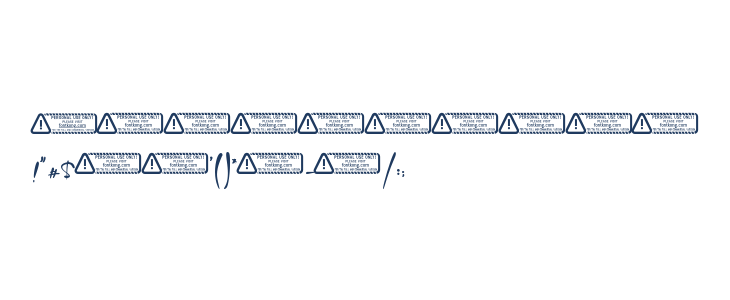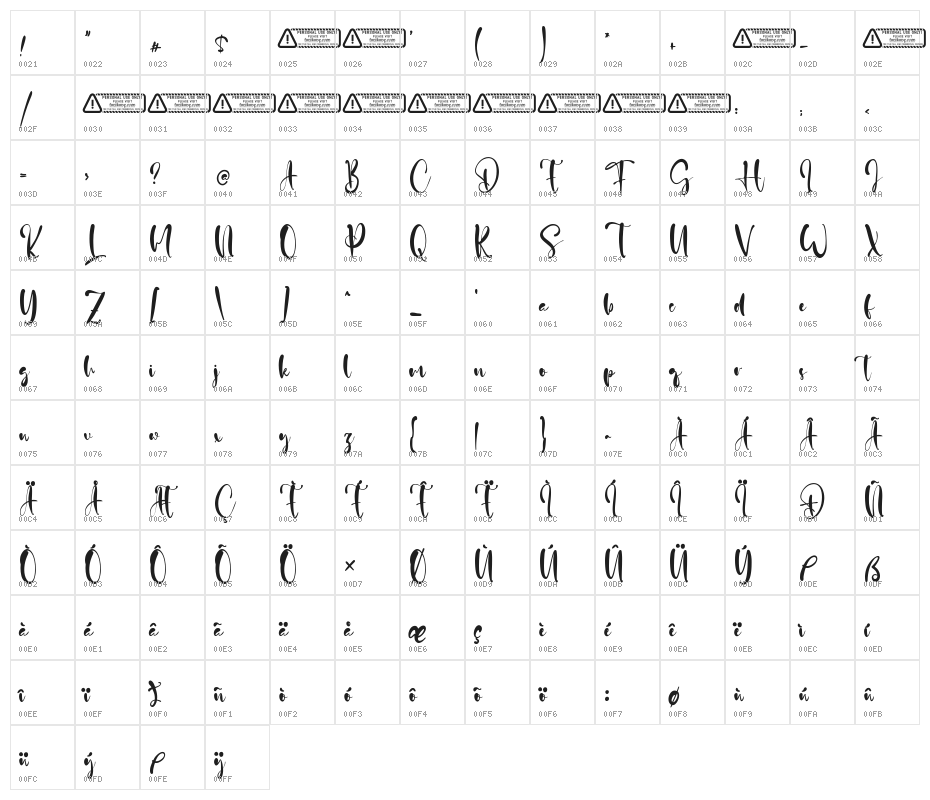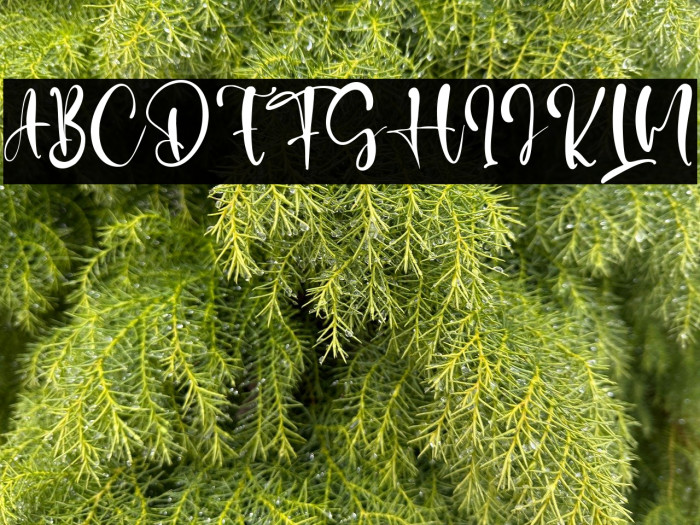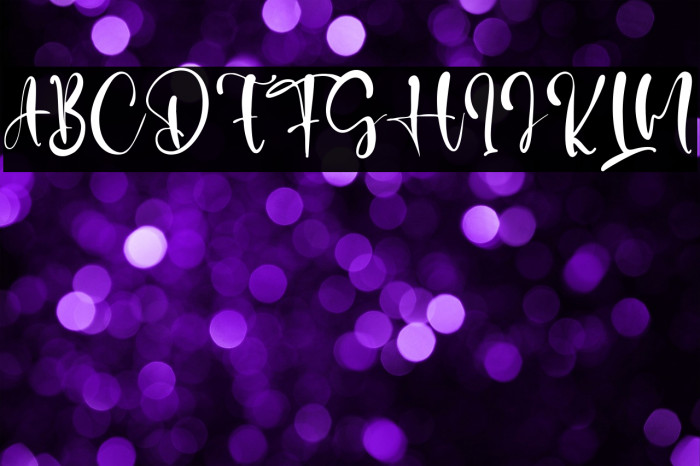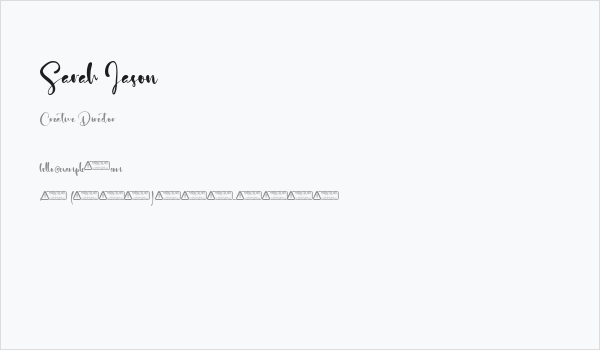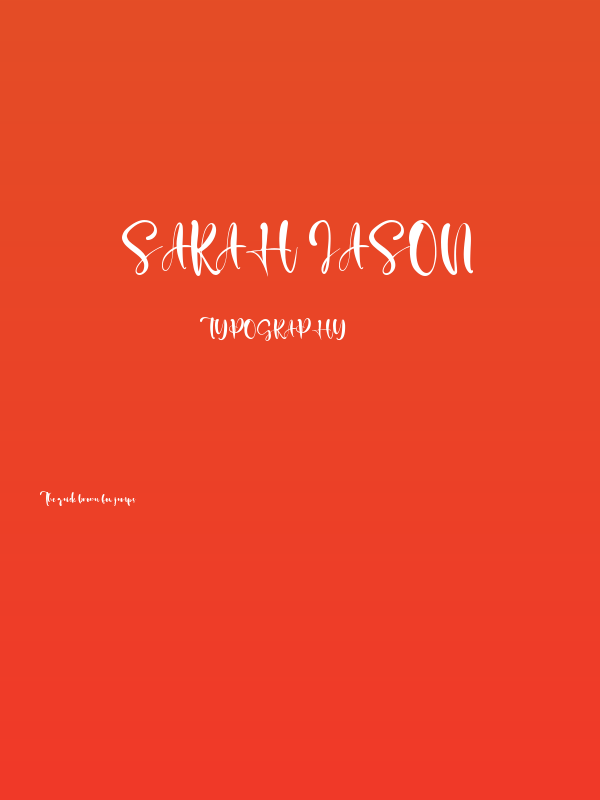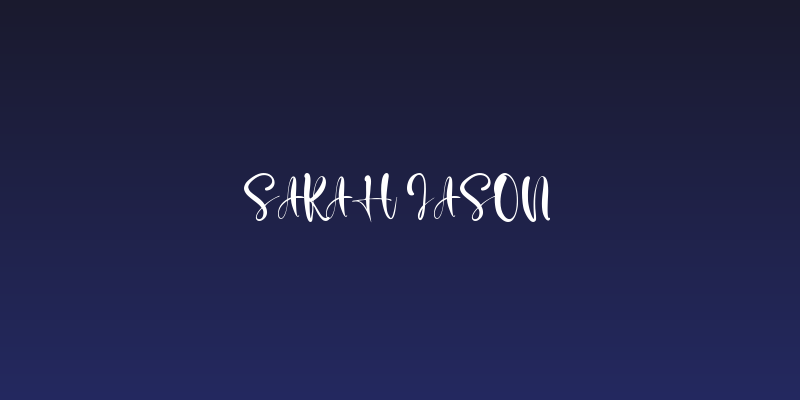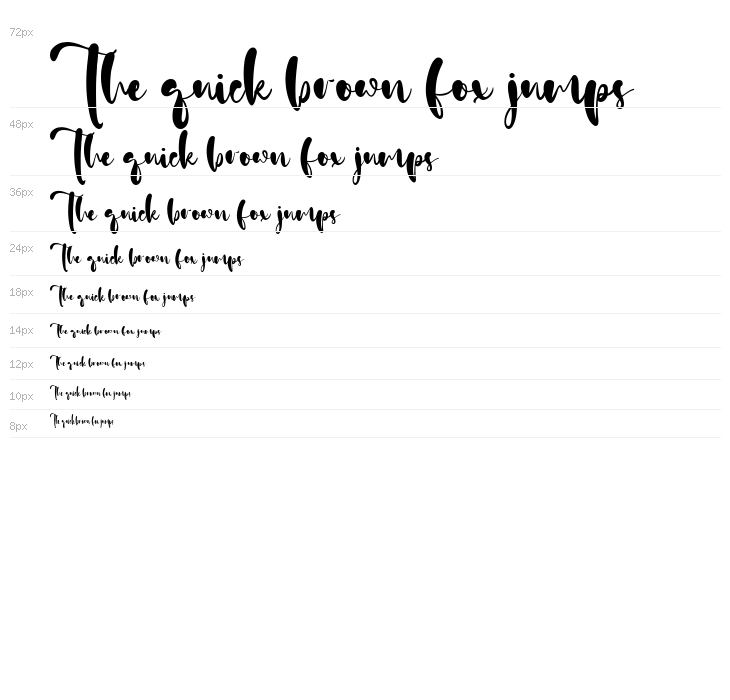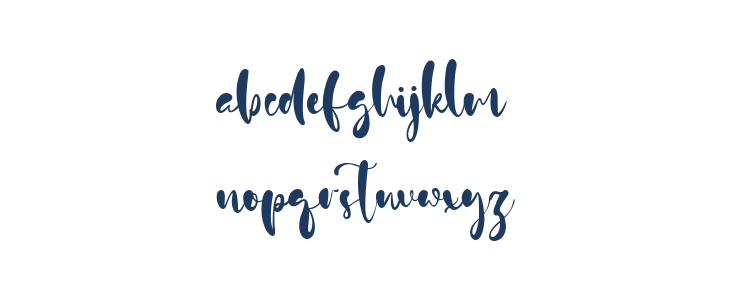
Sarah Jason Font
Sarah Jason Description
This font features a bold and expressive script style, characterized by its flowing and interconnected letterforms. The uppercase letters exhibit a dynamic and elegant flair, with sweeping curves and varying stroke widths that create a sense of movement and grace. The lowercase letters maintain a consistent style, complementing the uppercase with their rounded and fluid shapes. The font's overall appearance is both artistic and modern, making it suitable for creative and decorative applications. The special characters are designed to match the font's aesthetic, ensuring a cohesive look across all text elements.